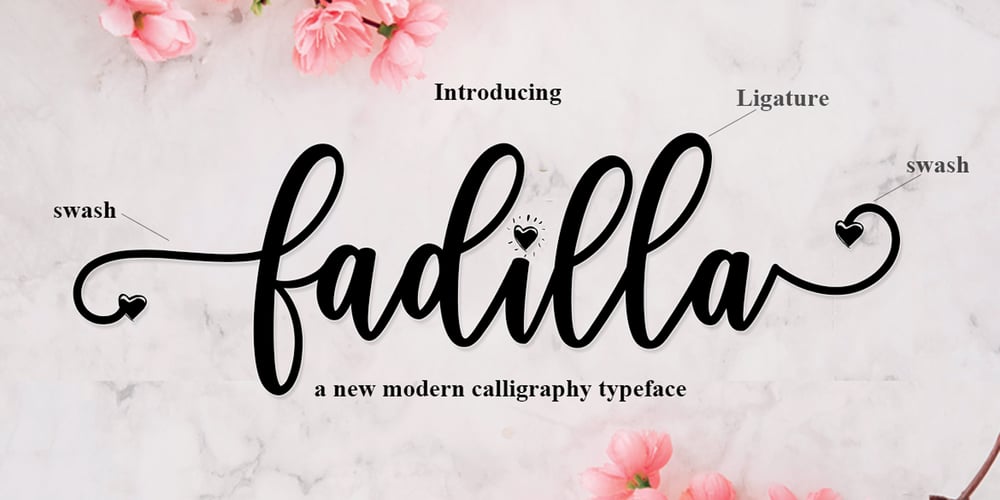
Fadilla
Fadilla font
Fadilla Font Family was designed by Muhammad Rizal and published by MrLetters. Fadilla contains 1 styles and family package options. Fadilla Script is perfect for branding, wedding invitations, magazines, mugs, business cards, quotes, posters, and many more that you can use on your big project will be very beautiful.Fadilla Script is equipped with OpenType feature and has many glyphs, giving you the chance to choose letters to your liking, having lots of variations and choices for each letter, so you can customize your design choices. Fadilla Script also support other languages.You need a program that supports OpenType features such as Adobe Photoshop CS / Adobe Photoshop CC, Adobe Illustrator CS / Adobe Illustrator CC, Adobe Indesign and Corel Draw and many more programs that support OpenType. If you don’t have a program that supports OpenType, you can access all the alternate glyphs using Font Book (Mac) or Character Map (Windows)If you have any question, don’t hesitate to contact me by email.